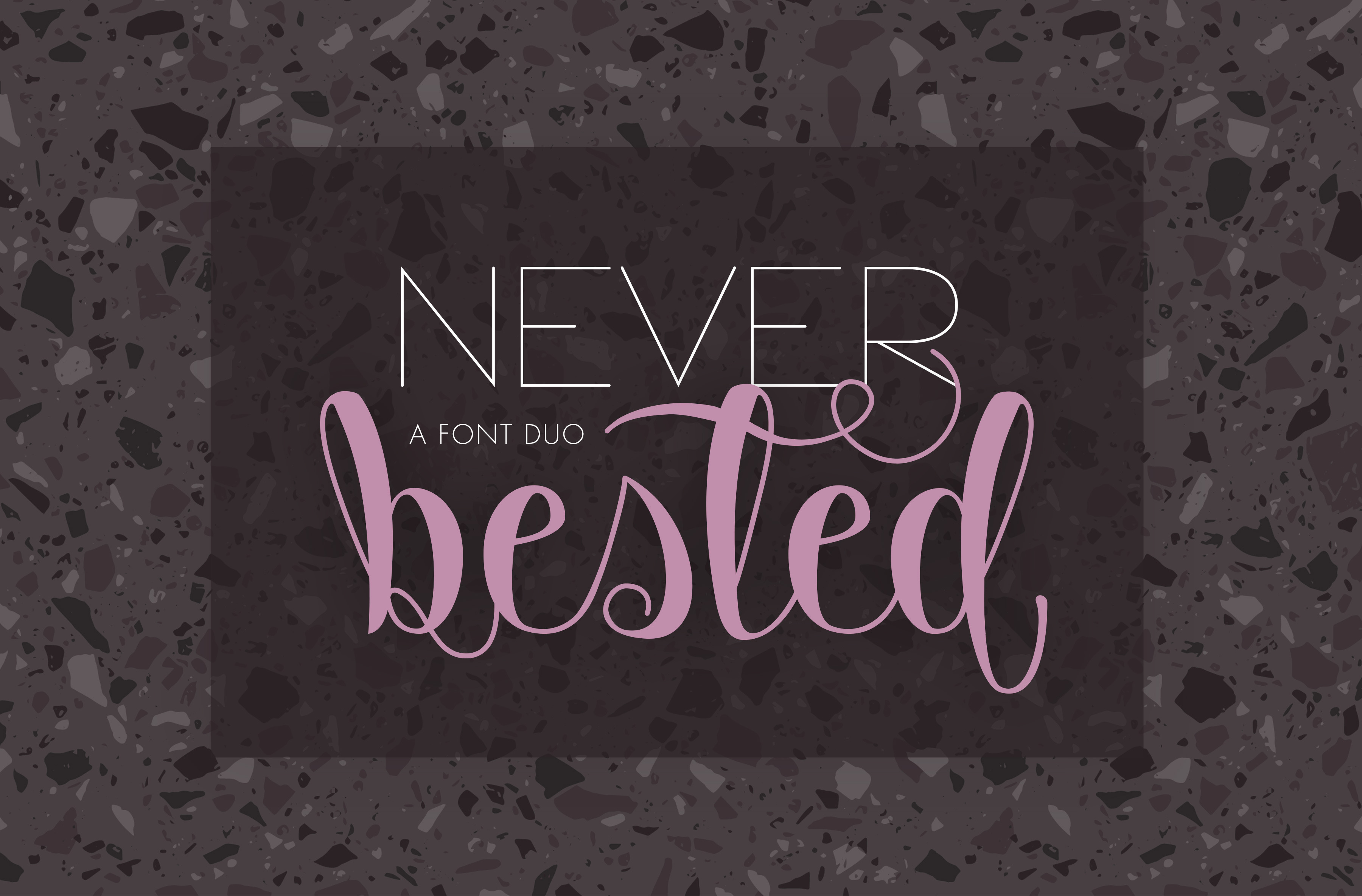
Never Bested: an elegant font duo with a feminine touch. This font duo includes an all caps simple sans, and a whimsical lowercase script.
Numerals, punctuation and multilanguage support